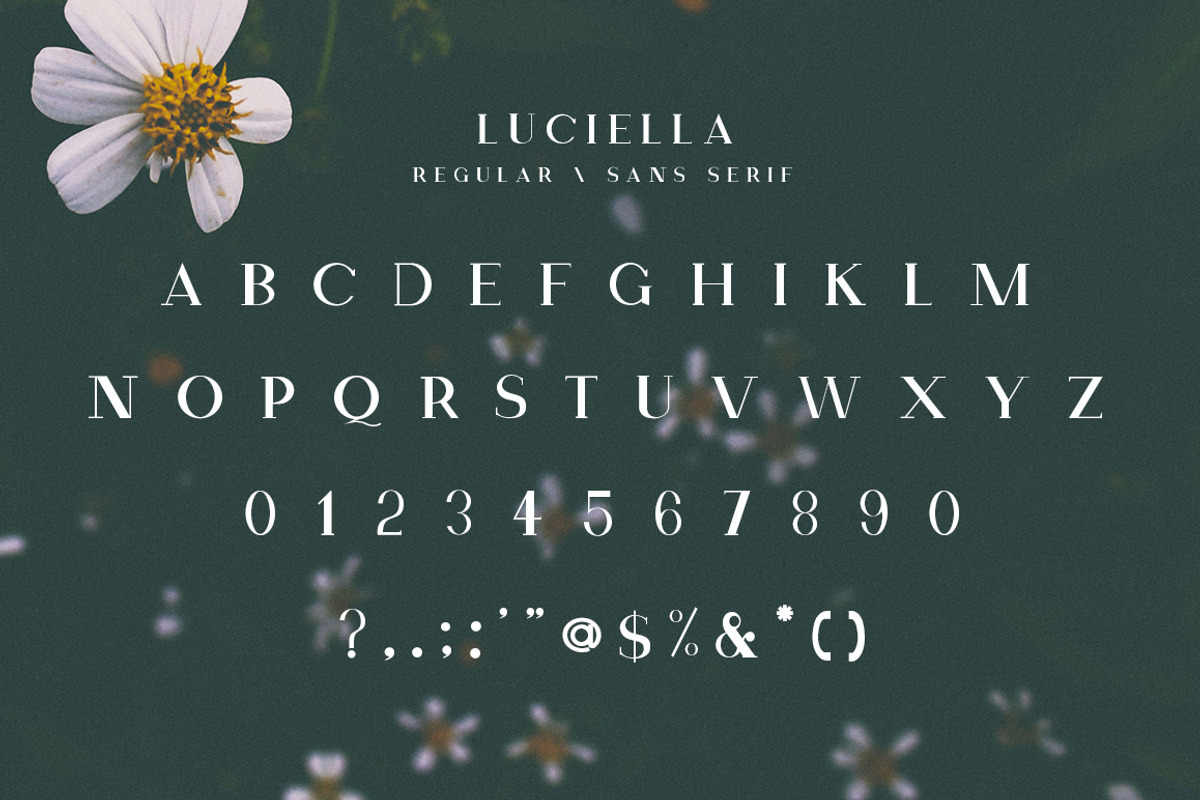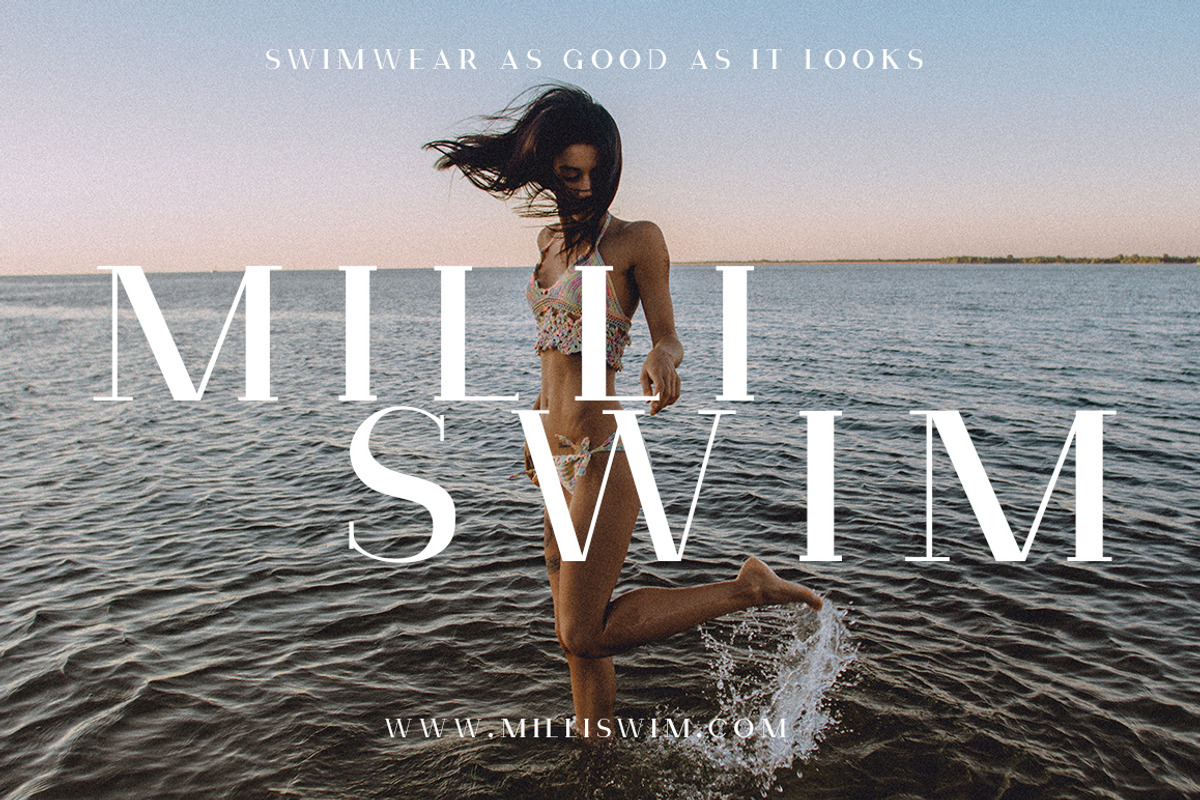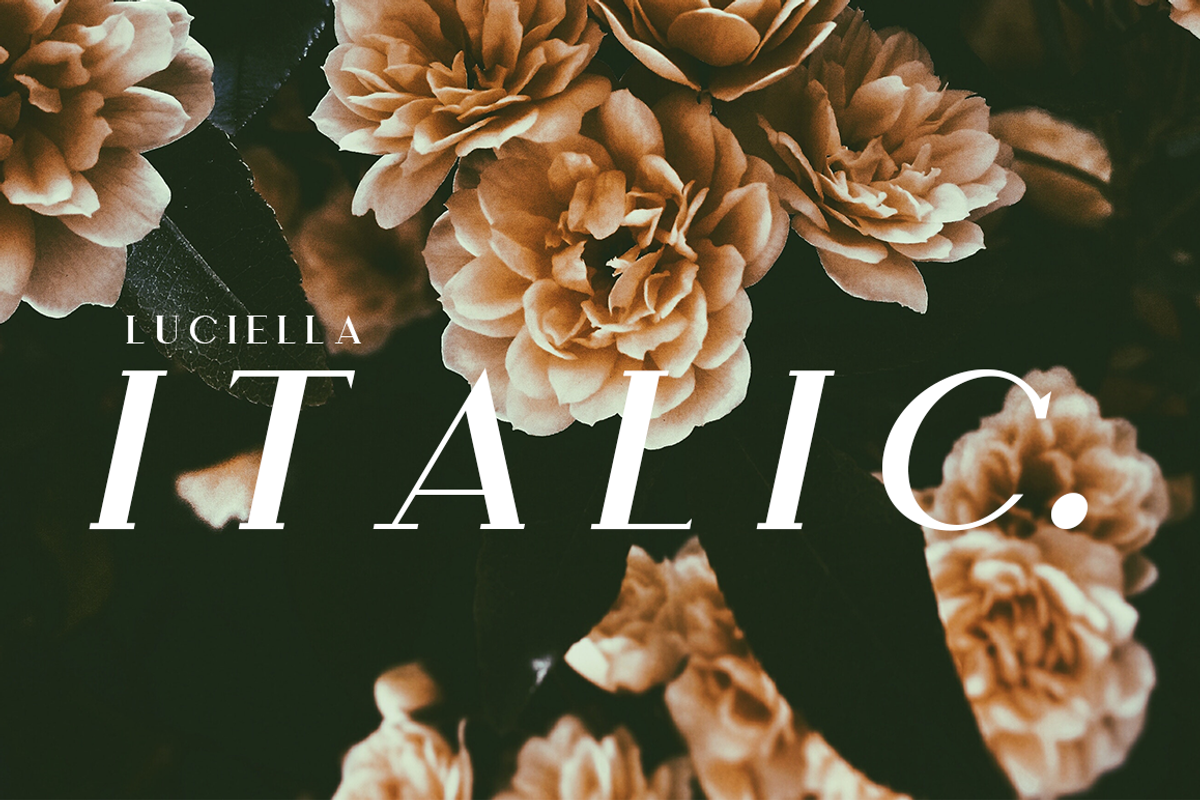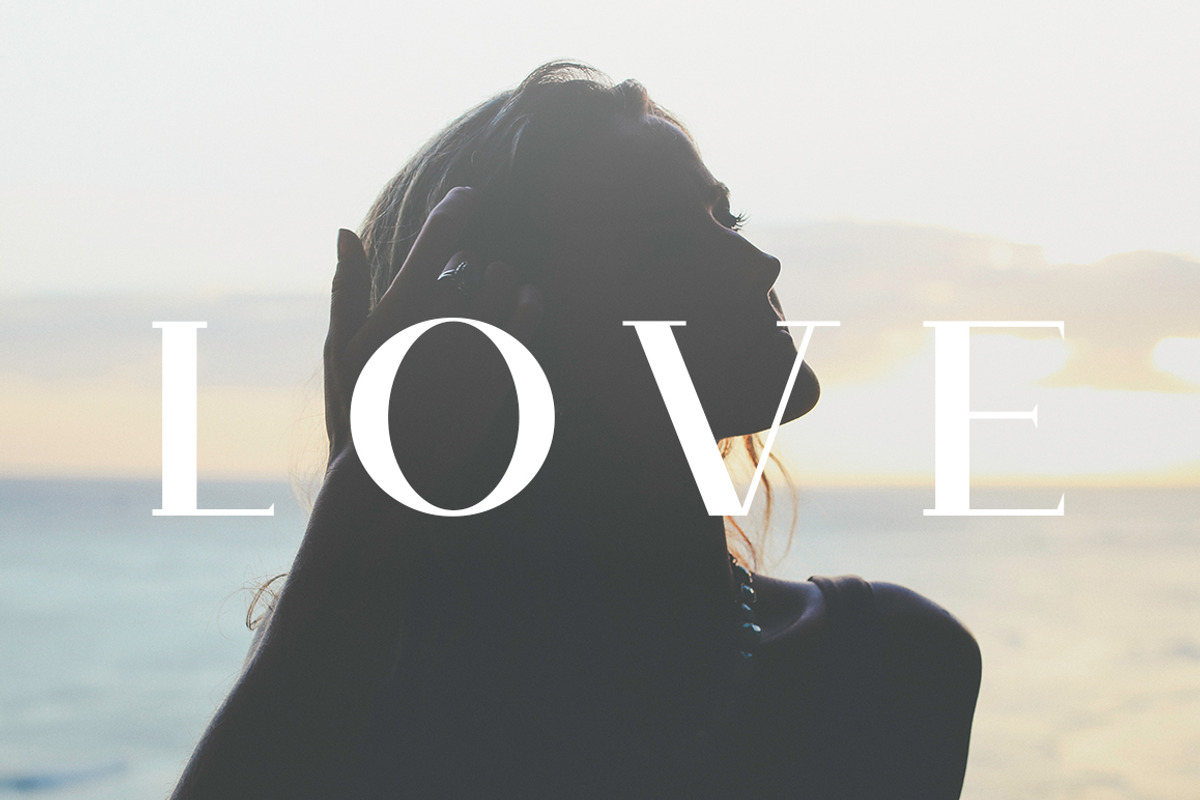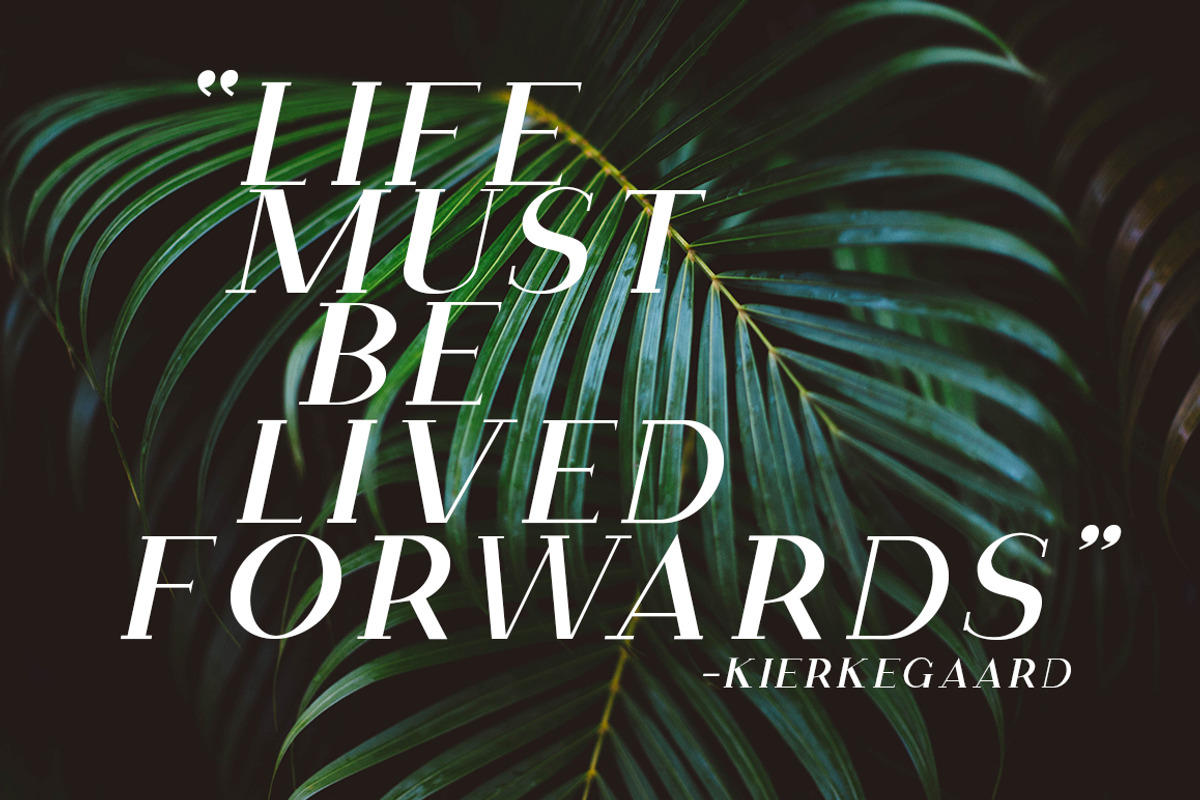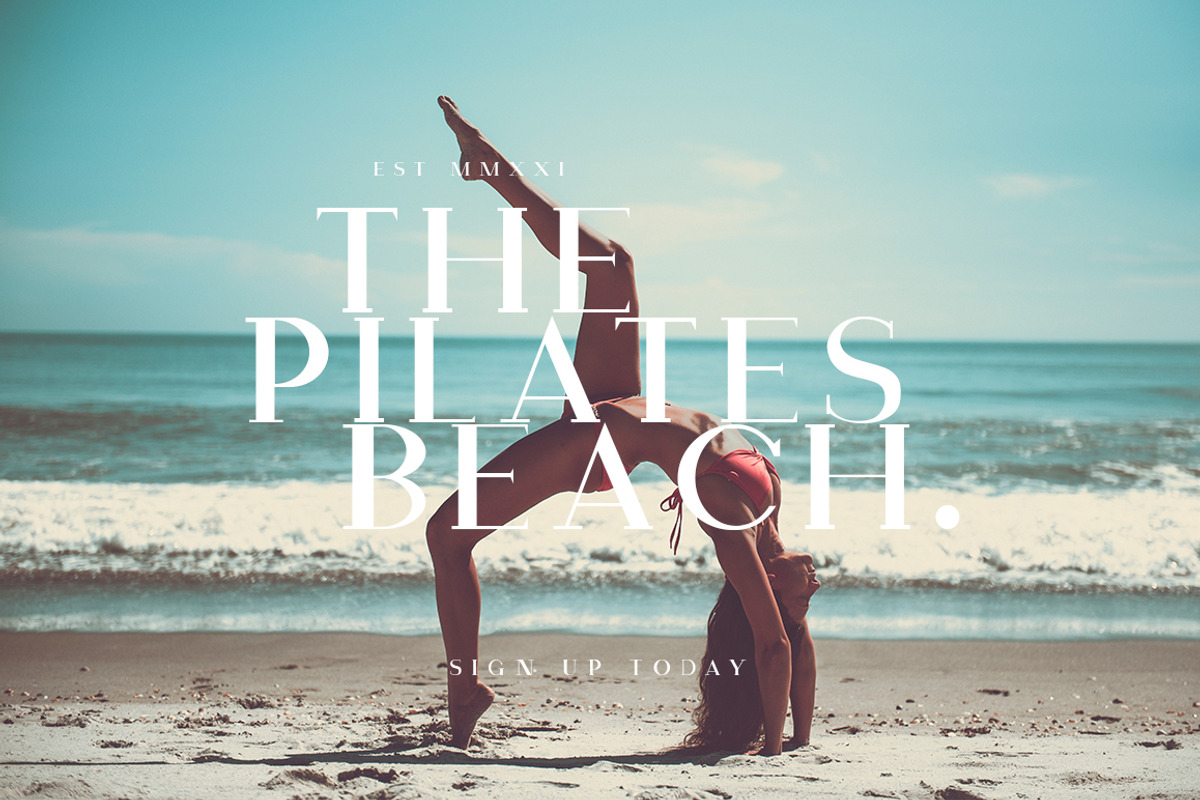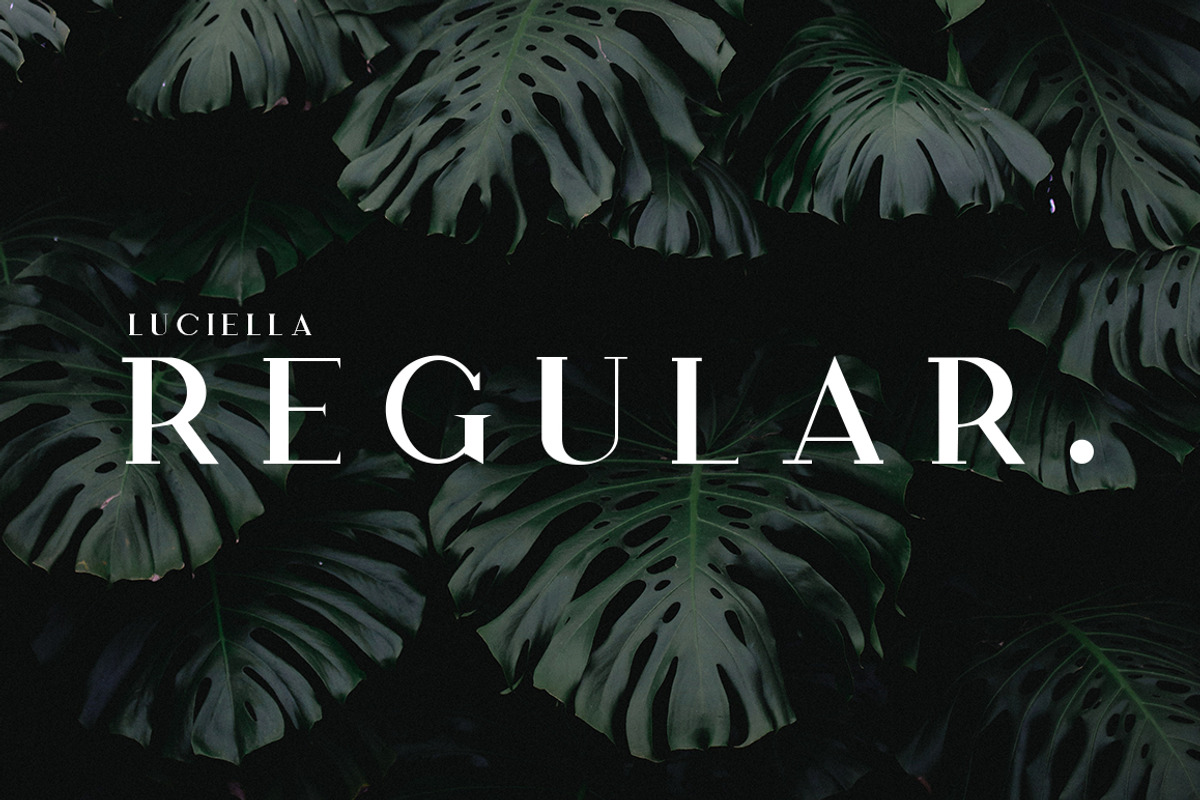
Luciella | A Poetic Font Family
Create Sophisticated, Luxurious & Beautiful Designs With The Luciella Font Family!
Luciella is as passionate and poetic as her Italian roots. A seamless blend of thick and thin lines compliment one another perfectly, while the serifs add a timeless and classic aspect.
Luciella works for corporate projects, branding, publishing, editorial, and logotype. It particularly works wonders for wedding stationery, branding for clothing, jewellery, perfume and any project that needs a touch of elegance and class.
Optimized kerning for aesthetic and highly readable texts.